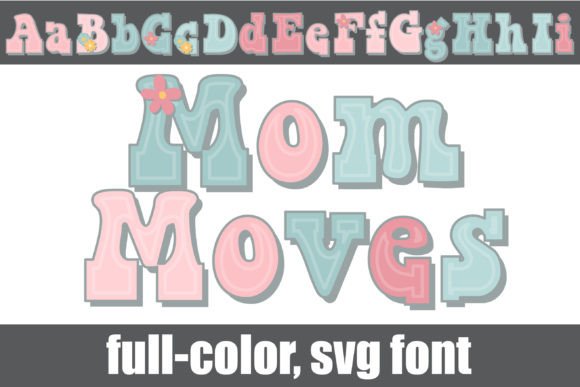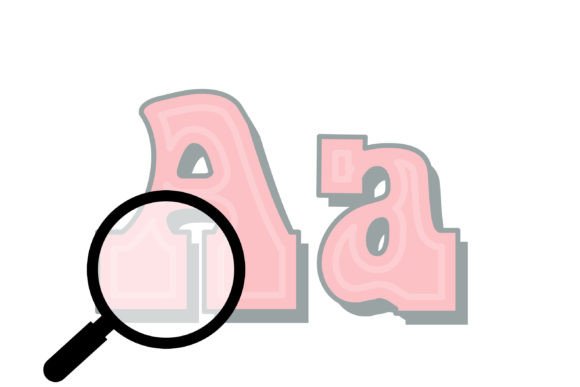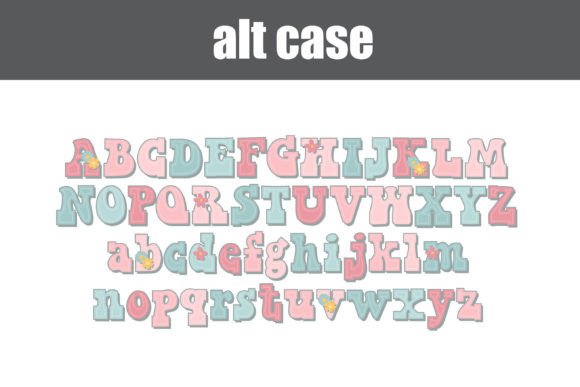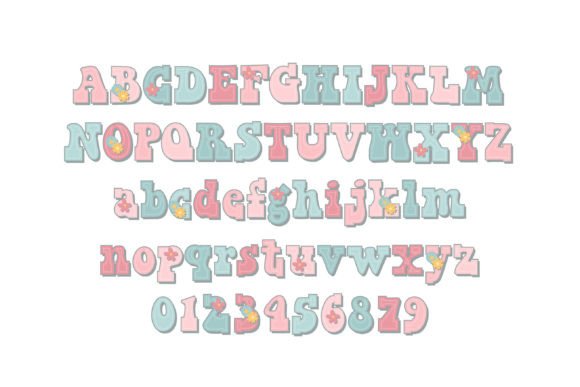
Mom Moves Font
About the Mom Moves Font
From logos to headlines, the Mom Moves Font is the perfect choice for making a lasting impression. This full-color font features a retro style font in pretty, spring color palette. There is an alt case w/ additional colors you can access through your system or Silhouette’s glyph map.